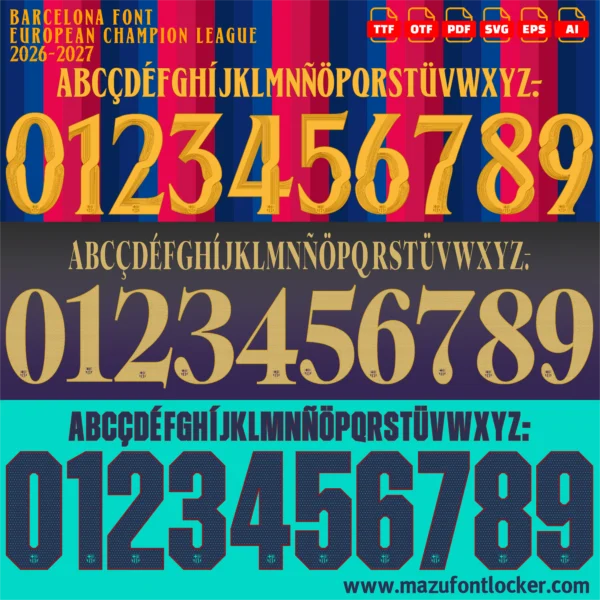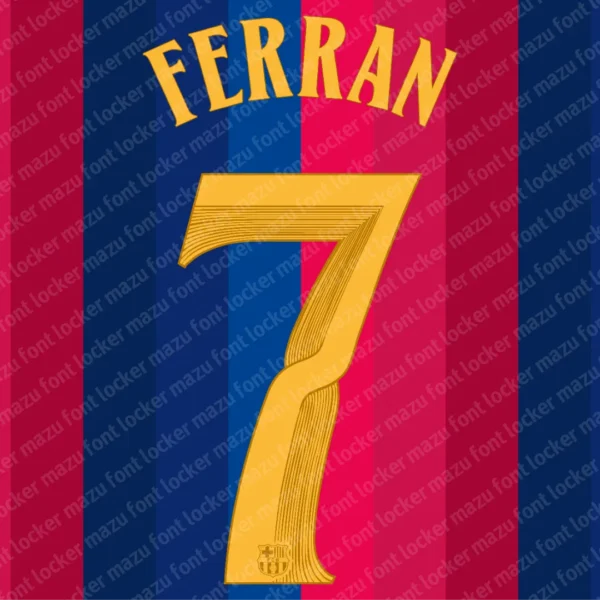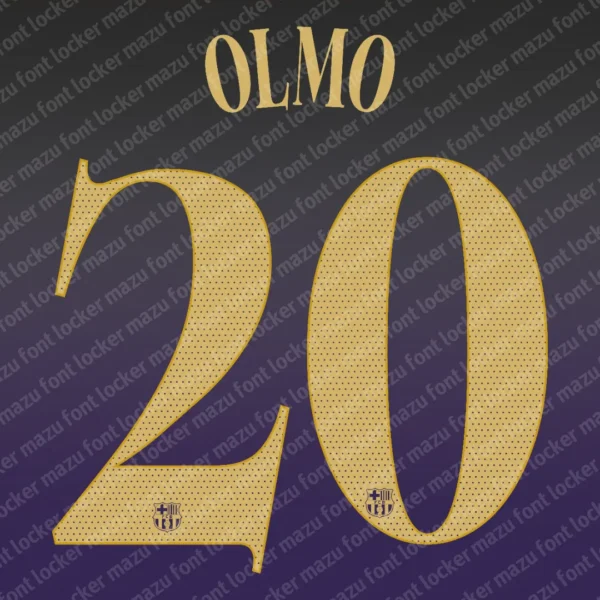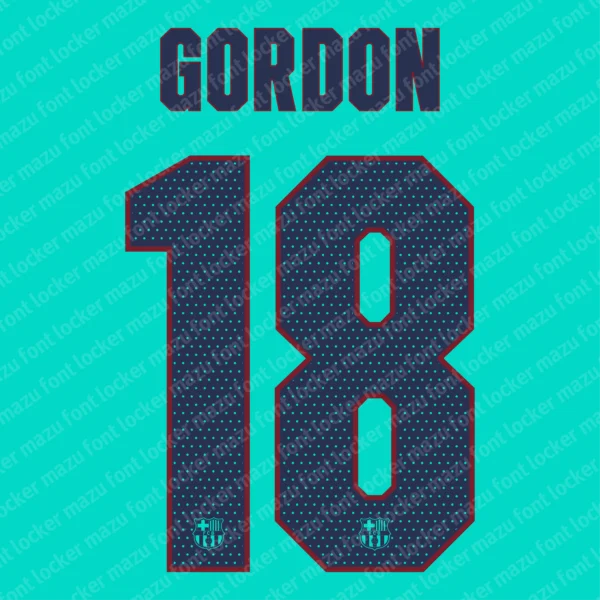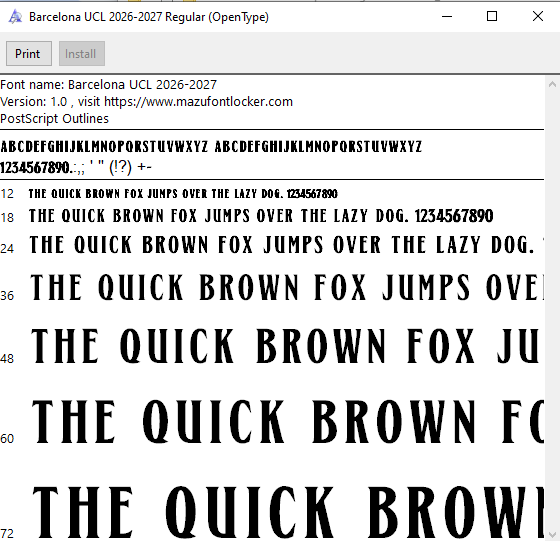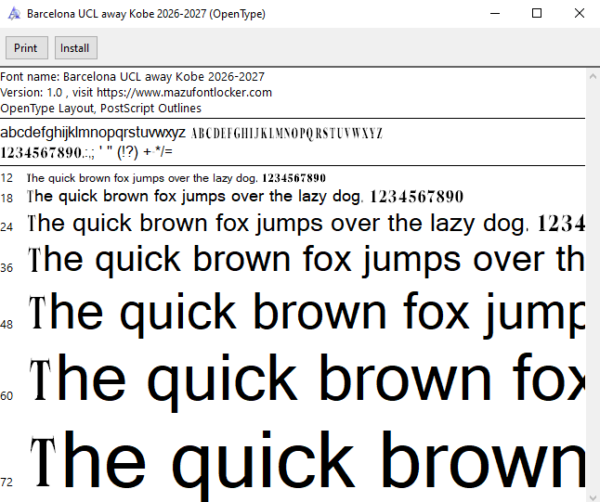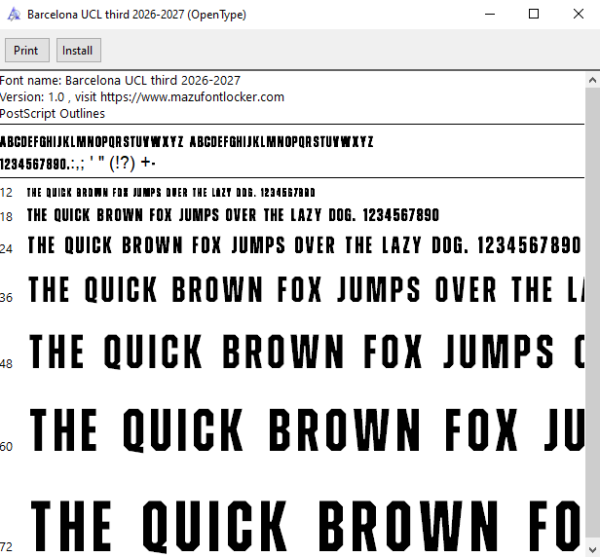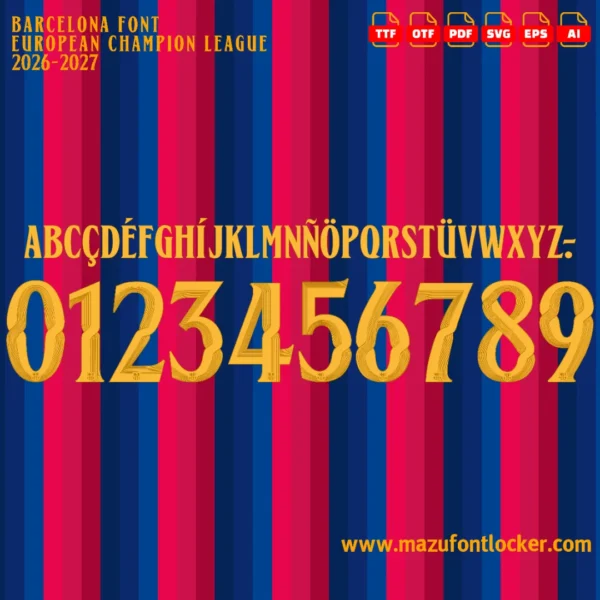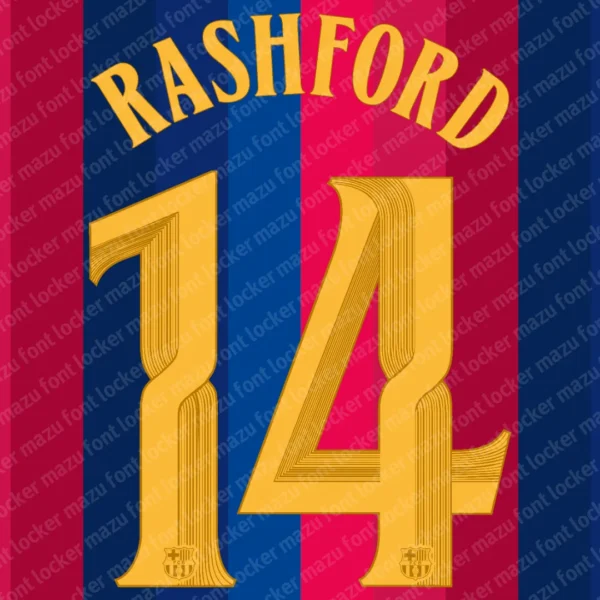
Barcelona UCL 2026-2027 Font Vector – Stunning Blaugrana UCL Dominant Typeface
The Barcelona UCL 2026-2027 Font Vector is a premium typeface that accurately recreates the official match lettering worn by FC Barcelona during the 2026-2027 UEFA Champions League (UCL) campaign. This high-quality vector font kit captures the bold, elegant, and iconic typography that defines one of the greatest clubs in world football.
Designed for professional designers, football enthusiasts, and Barça supporters, the Barcelona UCL 2026-2027 Font Vector delivers authentic results for jersey mockups, fan merchandise, retro football projects, social media graphics, and epic matchday designs. It perfectly complements the legendary Blaugrana kits worn by the Culés throughout the 2026-2027 UCL season.
Why Choose Barcelona UCL 2026-2027 Font Vector
This font stands out thanks to its faithful recreation of the official shirt lettering used by Barcelona during the 2026-2027 UCL. Every character has been carefully crafted to match the authentic player names and numbers seen on the pitch. Whether you are designing realistic kit concepts or creating football-themed artwork, the Barcelona UCL 2026-2027 Font Vector delivers professional-quality authenticity.
The letterforms feature a clean, athletic, and powerful design that reflects Barcelona’s legendary status and the majestic spirit of Camp Nou. The balanced proportions and sharp detailing provide excellent readability while maintaining the club’s proud Catalan identity.
The numerals are bold, modern, and highly recognizable, closely matching the official squad numbers used throughout the 2026-2027 UCL campaign. The vector format ensures perfect scalability for both digital and print applications.
- Complete uppercase A–Z and numbers 0–9 in authentic Barcelona UCL 2026-2027 style
- Multilingual Latin character support including diacritics
- Includes accurate crest glyph positioning for realistic jersey customization
The Barcelona UCL 2026-2027 Font Vector is an independently designed typeface package created to replicate the official shirt lettering style used by Barcelona during the 2026-2027 UCL season. It is ideal for retro football projects, jersey customization, fan artwork, historical recreations, and sports design work.